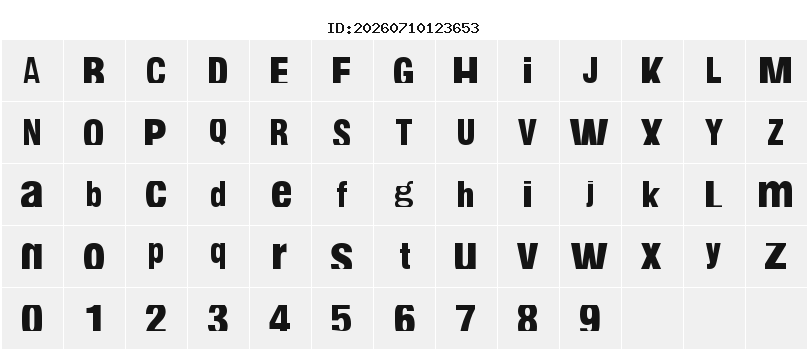
About fabianestem.ttf
fabianestem.ttf is a modern, elegant sans-serif font designed for ultimate readability and visual harmony. Perfect for branding, headlines, web design, and print materials.